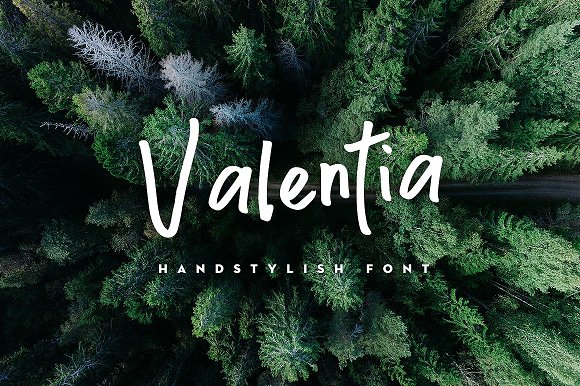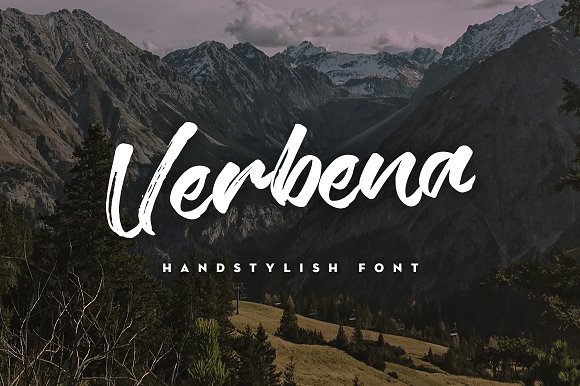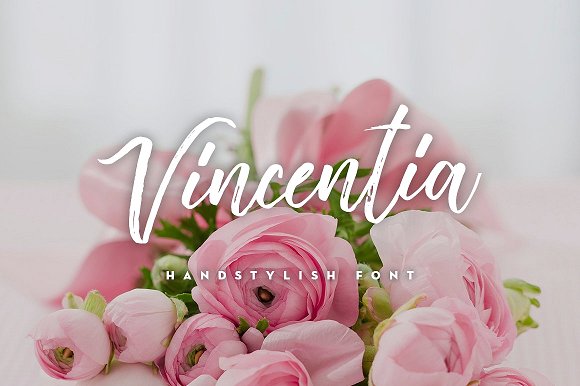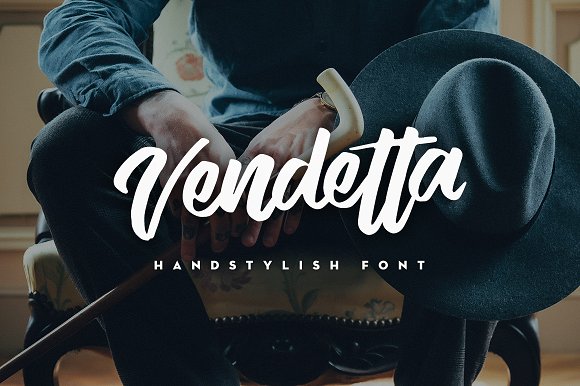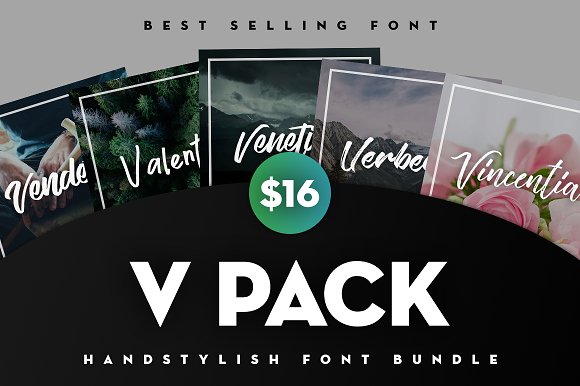
V PACK HANDSTYLISH FONT BUNDLE
For the first time all my “V” Handstylish Fonts in 1 package and with big discount. A gorgeous Handstylish Font Bundle of my most popular and best selling products! Use these fonts for logos, titles, invites, prints and any other awesome projects you are working on!